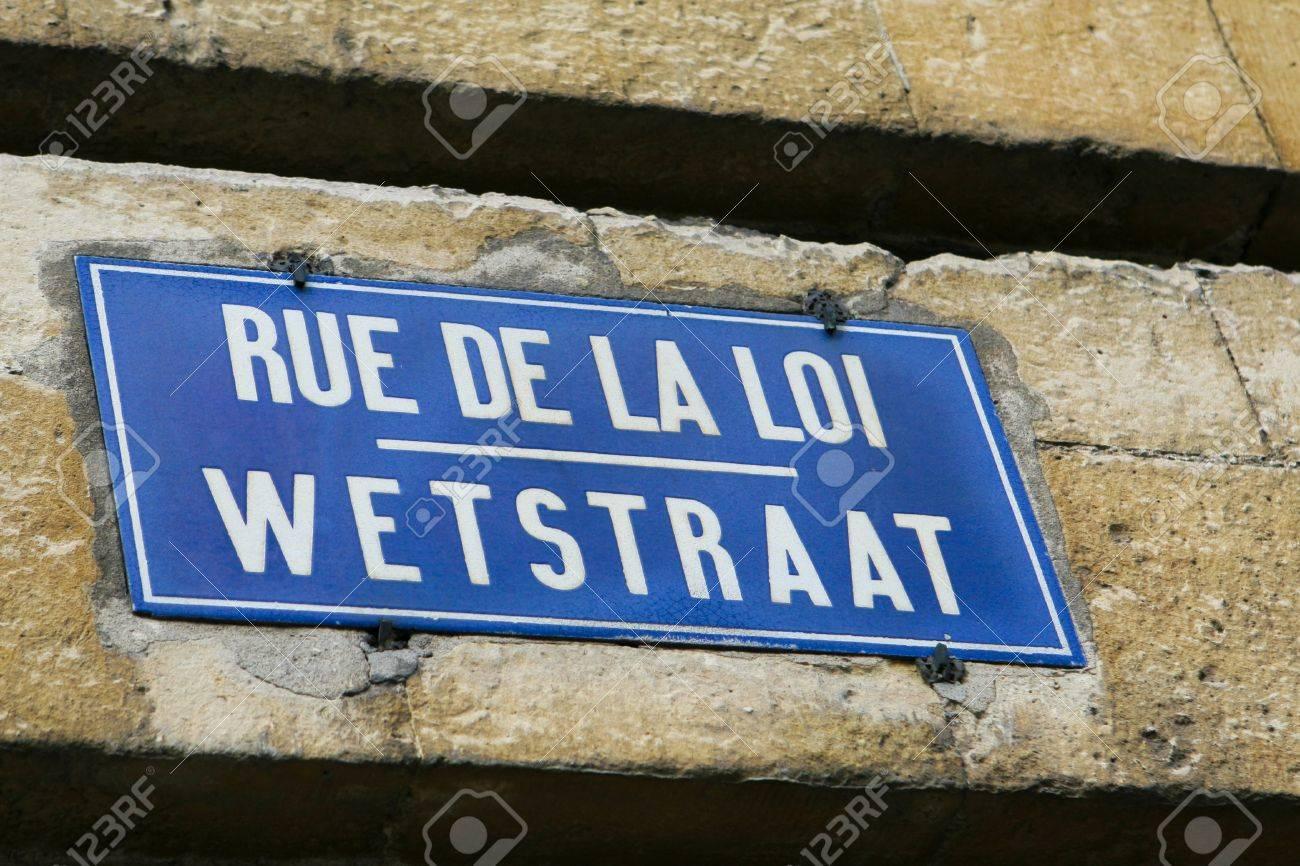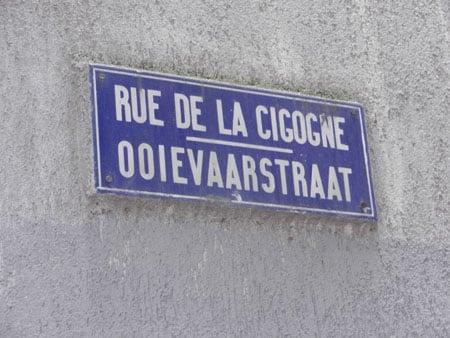
Older Belgian street sign typeface (spotted in Brussels)
Can anyone identify this font or near match?
Has two widths, though the most condensed is seen more frequently and is primarily what we're looking for.
What Ralf said.
For comparable designs, FF Cst Berlin East comes to mind, also because of a similar pedigree.
There are other narrow mechanical typefaces, albeit not many with this kind of treatment for the leg of |R|.
And the only typeface of which I’m aware that features such an open |G| is the one used for car plates in Italy [1], [2], [3].
This kind of lettering has inspired innumerable typefaces. In order to give meaningful suggestions, one would need to know what is the main aspect you are drawn to this particular type.
It is the street plaque usage? It is Brussels or Belgium? It is the vernacular vibe, or the mechanical one? It is a specific shape of letters (openness of |G|, leg of |R|, high-waisted |P|R|, quirky |S|), all of them or just one? A specific width and/or weight?
Here is a partial list of typefaces that may or may not be considered similar (mainly focussing on a curve-to-straight leg of |R|):